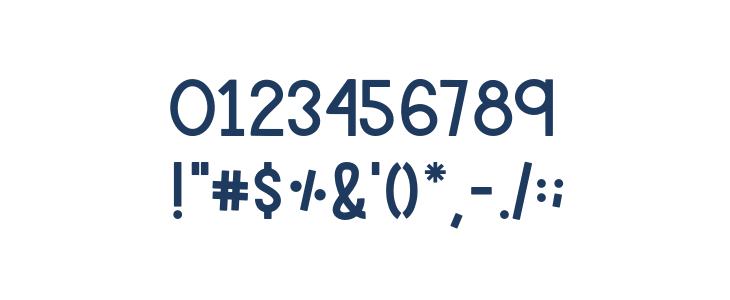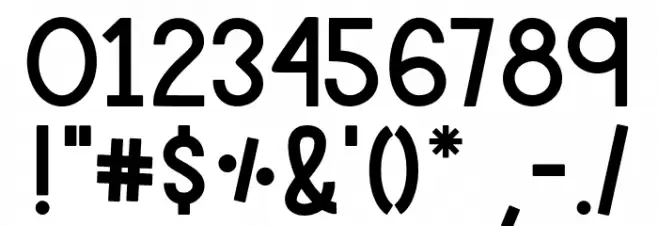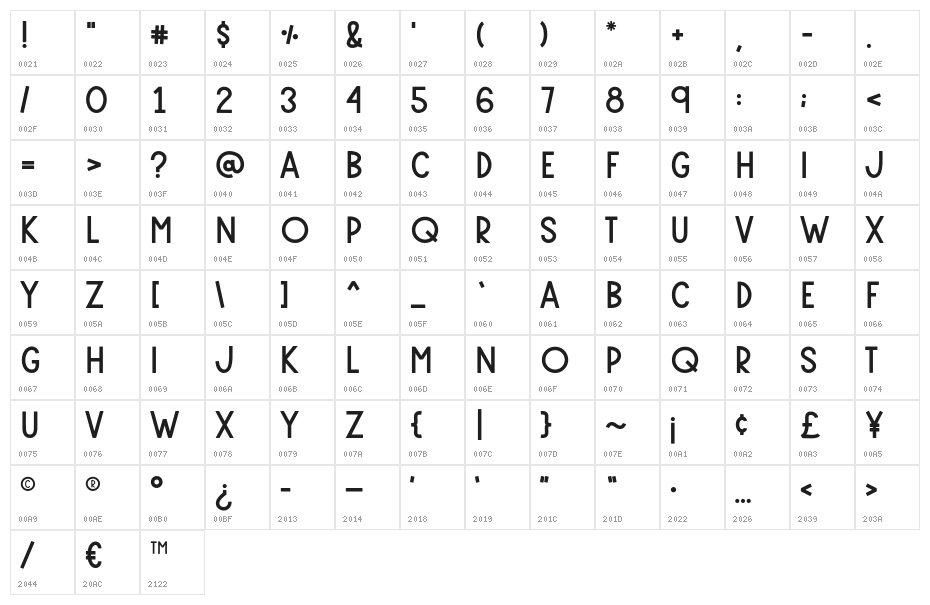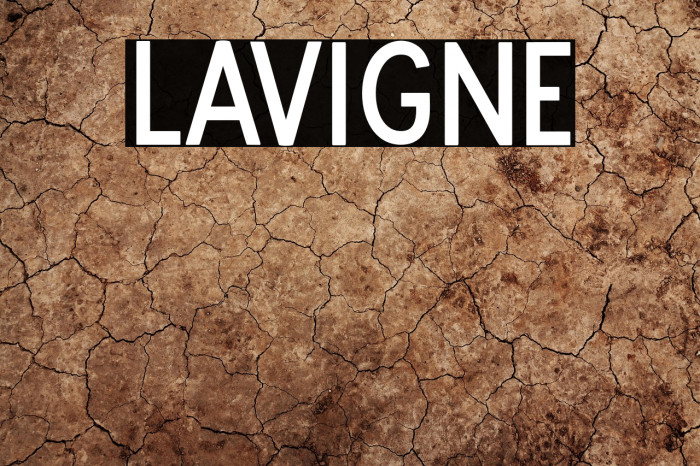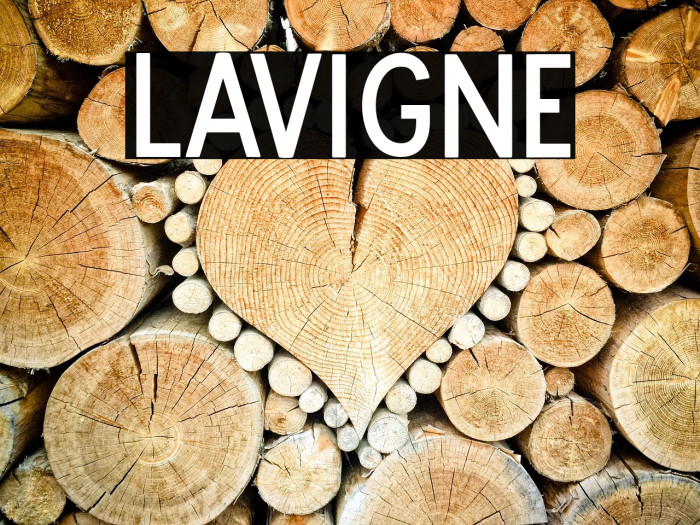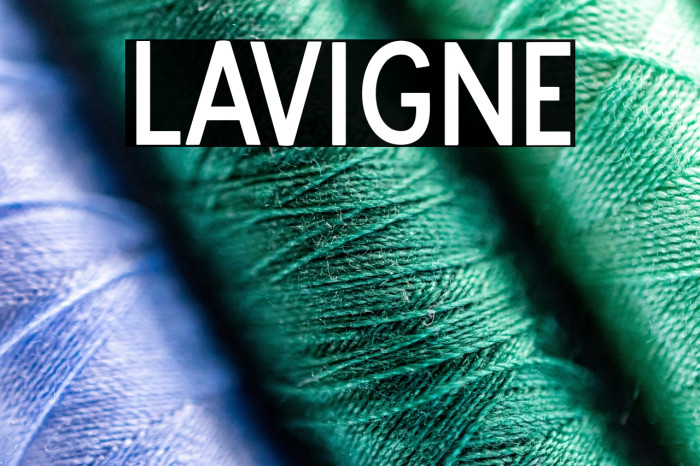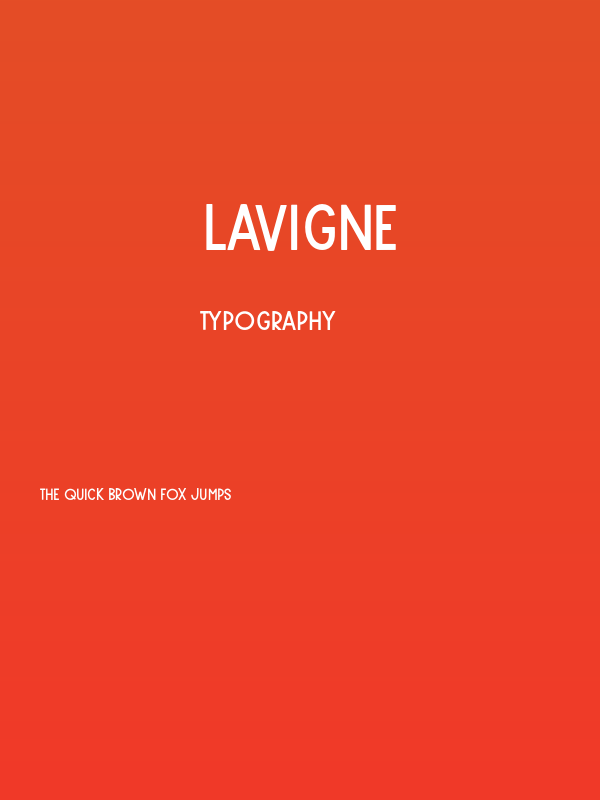
Lavigne Font
Lavigne Description
This font features a bold and clean sans-serif style, characterized by its geometric shapes and uniform stroke widths. The uppercase letters are tall and slightly condensed, giving a modern and streamlined appearance. The lowercase letters maintain a consistent height, complementing the uppercase with a balanced and cohesive look. The numerals are clear and legible, designed to match the overall aesthetic of the alphabet. Special characters are included, maintaining the same bold and straightforward design. The font's simplicity and clarity make it versatile for various design applications.